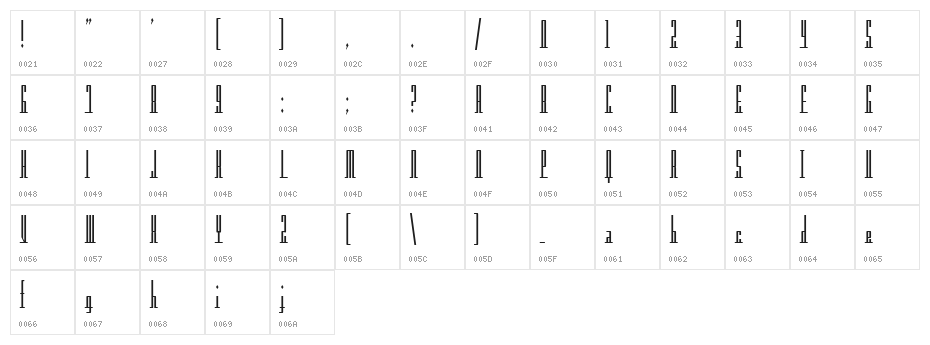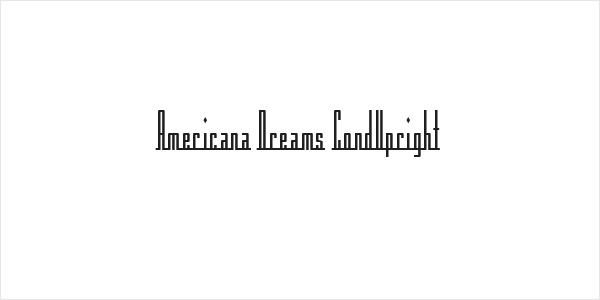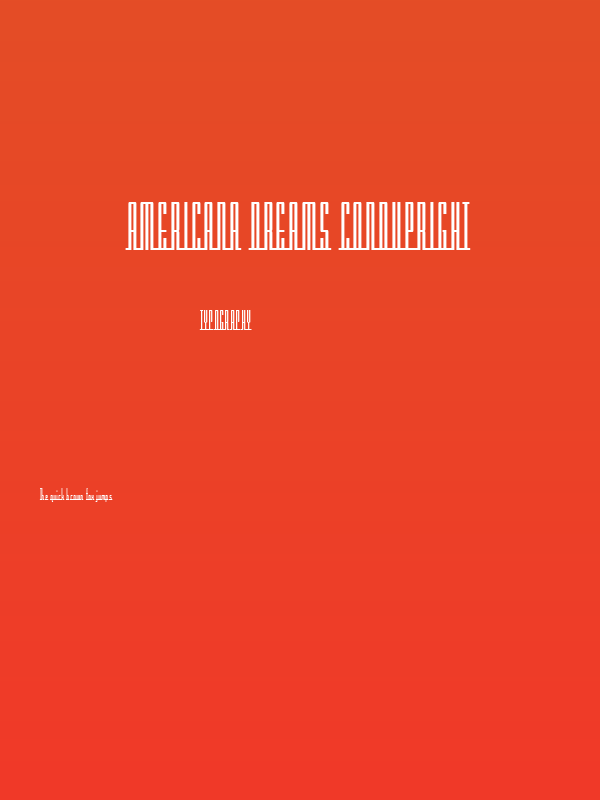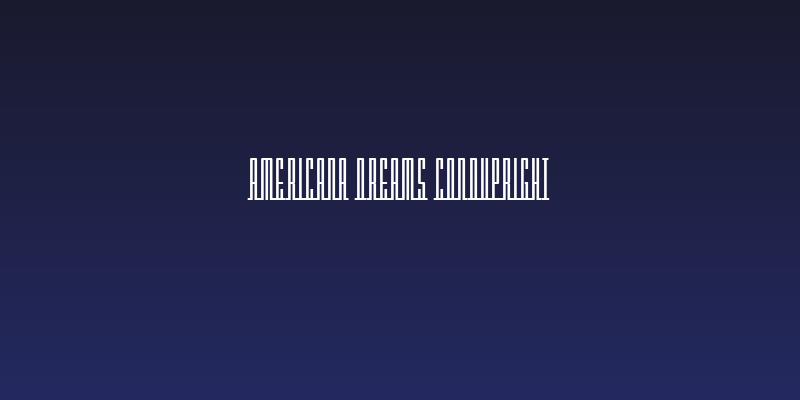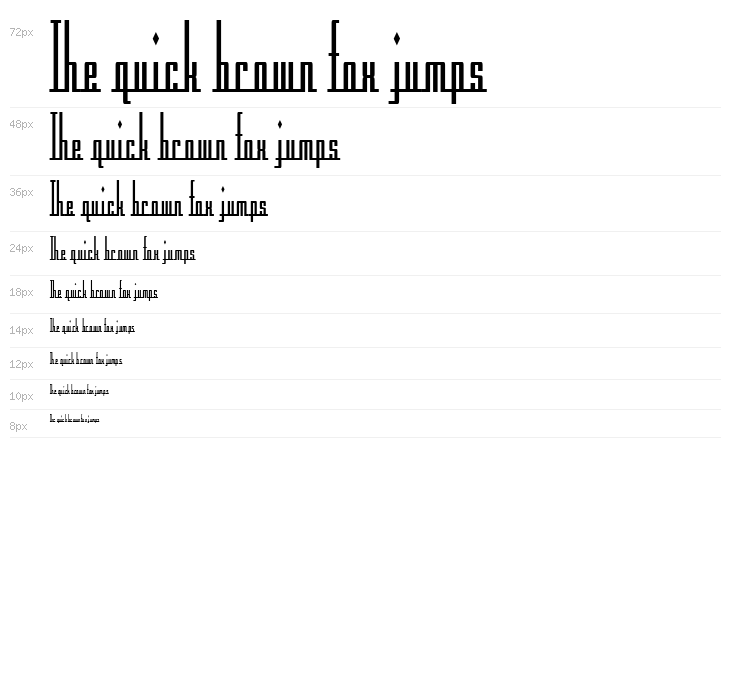
Americana Dreams CondUpright Font
Americana Dreams CondUpright Description
This font features a condensed and upright style with a distinctly modern and geometric appearance. The characters are tall and narrow, with a consistent stroke width that gives it a monospaced feel, although it is not strictly monospaced. The uppercase letters are particularly elongated, creating a striking vertical emphasis. The lowercase letters maintain the same narrow structure, ensuring uniformity across the typeface. The numerals and special characters follow the same design principles, contributing to the overall cohesive look. This font's unique style makes it suitable for attention-grabbing designs.
| Proposed Projects | Ideal for posters, branding, and editorial design where a modern and striking appearance is desired. |